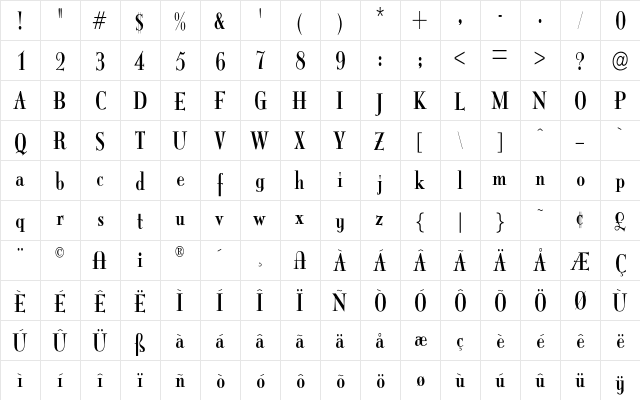
ItingOpti RegularCondensed
Design Context for ItingOpti Typeface
ItingOpti offers clean, dependable letterforms without strong stylistic allegiance, making it a practical choice for designers who need flexibility. Its narrow stance lets it pack a punch even in space-constrained designs.
Pro Tip: Use ItingOpti in both headline and body roles to test its range before committing to a single application.